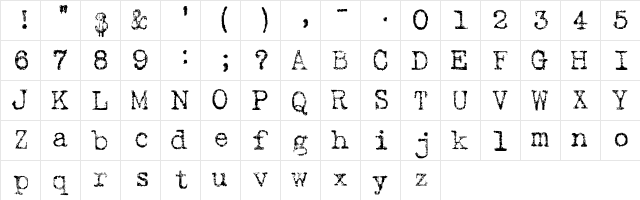
Typewriter2 Regular Font Preview
Typewriter2 Regular
Typewriter2 Regular Font Details
Design Context for Typewriter2 Typeface
Typewriter2 uses fixed-width spacing throughout, giving it the structured, systematic character associated with coding environments and technical documentation.